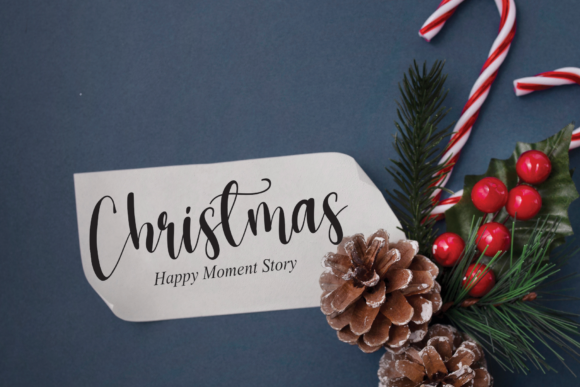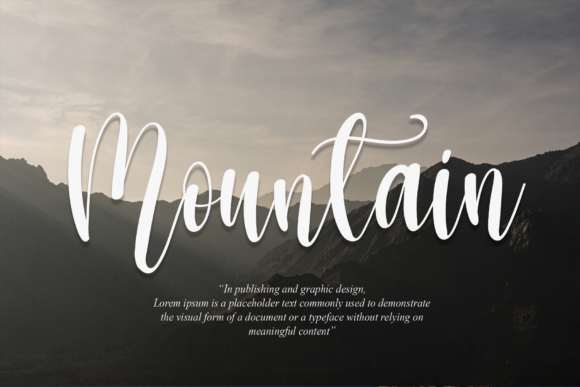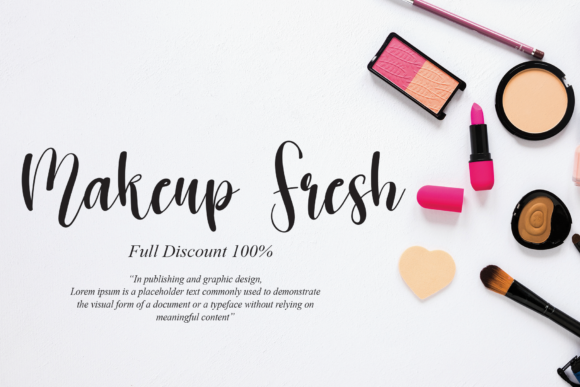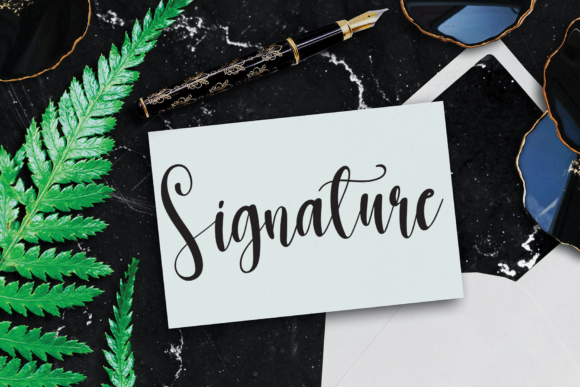
The Sweet Touch of Caketar Font
Have you ever found yourself scribbling down a beautiful idea on a sticky note, only to realize that it’s a design concept that could be turned into a stunning visual masterpiece? That’s exactly what happened to us, and it led us to discover the enchanting Caketar Font.
This exquisite script font is a treasure trove for designers, offering a perfect blend of elegance and playfulness. With its versatility, it’s ideal for a wide range of design projects, from wedding invitations and social media posts to logos, advertisements, and product packaging. What makes Caketar Font truly valuable is its ability to add a personal touch to any design, making it stand out from the crowd.
Caketar Font Key Features
- Unique Characteristics: Caketar Font features a unique, cursive script style with swashes and flourishes, adding a touch of elegance and sophistication to designs.
- Font Weight: The font comes in light, regular, and bold weights, allowing designers to adjust the font’s appearance to suit their design needs.
Caketar Font Review
I recently had the chance to work with the Caketar Font, and I’m excited to share my honest review. Overall, I think this font has some great qualities, but also some areas for improvement.
- Caketar Font has a beautiful, modern design that’s perfect for food-related branding and packaging.
- The font is highly legible, making it easy to read even in smaller sizes.
- The font family includes a range of weights and styles, giving designers plenty of options for customizing their designs.
- The font may be a bit too playful for some designs, and may not be suitable for more formal or professional projects.
- The font’s uniqueness can also be a limitation, as it may not be easily recognizable or memorable for some audiences.
Overall, I think the Caketar Font is a solid choice for designers looking to add a touch of whimsy and fun to their designs. While it may not be suitable for every project, I think it’s a great addition to any designer’s toolkit.
Tips for Getting the Most Out of Caketar Font
Use Caketar Font to add a touch of elegance and sophistication to your designs.
Pair Caketar Font with other elegant fonts to create a harmonious look.
Experiment with different font sizes and styles to add visual interest to your designs.
Caketar Font is ideal for:
Formal event invitations
High-end branding and marketing materials
Alternatives to Caketar Font for Designers
Great Vibes is a beautiful, elegant script font suitable for wedding invitations, greeting cards, and other creative projects that require a touch of sophistication. It has a more refined look compared to Caketar Font, making it ideal for formal events and high-end branding.
Comparison: Great Vibes Font has a more polished and refined look, while Caketar Font has a more playful and whimsical feel.
Pacifico is a stylish and modern script font perfect for branding, packaging, and advertising materials that need a touch of elegance and sophistication. It has a similar feel to Caketar Font but with a more polished and refined look.
Comparison: Pacifico Font is more versatile and can be used for a wide range of projects, while Caketar Font is more suited for creative and whimsical projects.
Playfair Display is an elegant and luxurious serif font ideal for high-end branding, luxury packaging, and advertising materials that require a touch of sophistication and elegance. It has a more formal and refined look compared to Caketar Font.